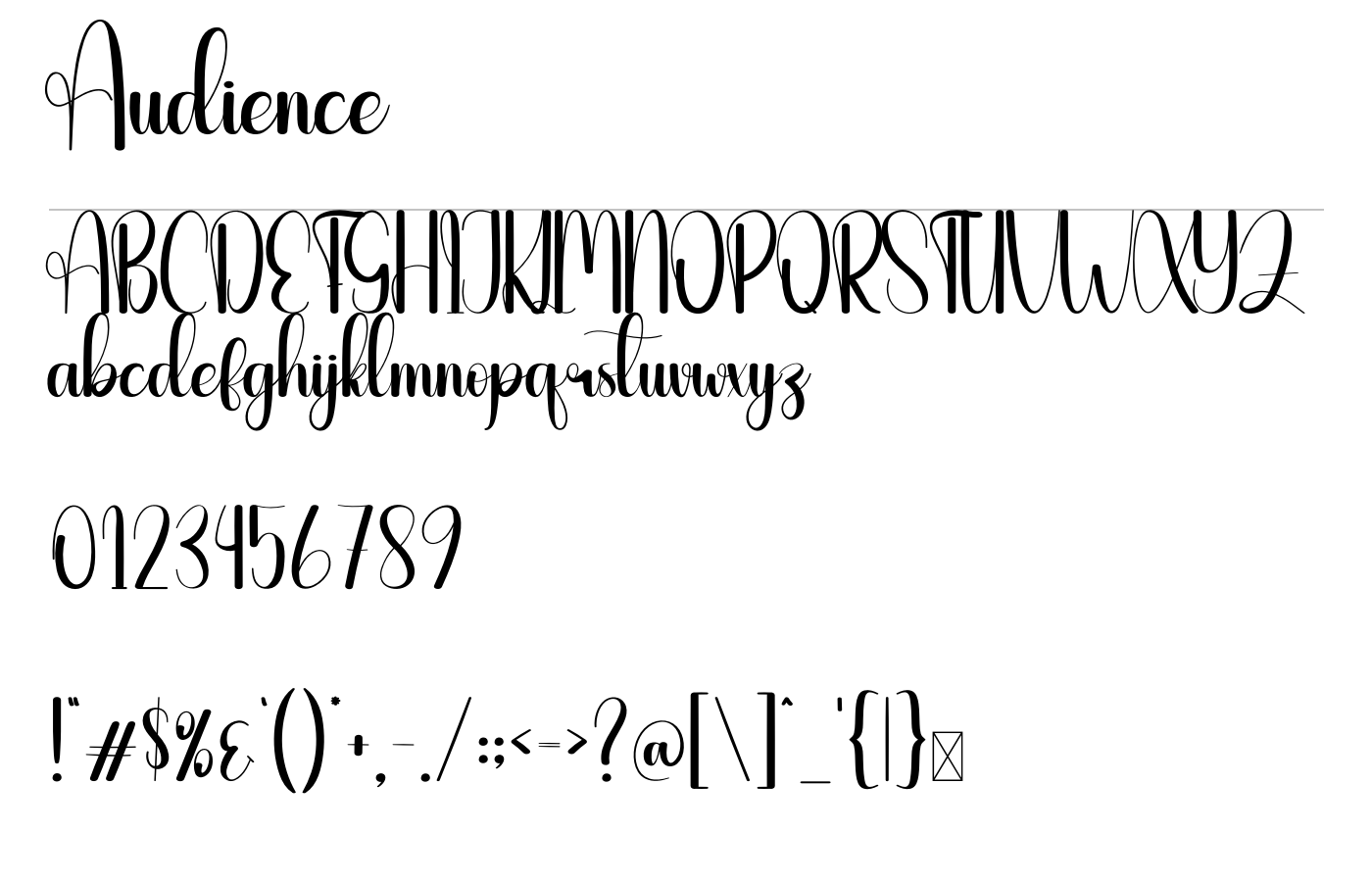
Audience Font is a stylish, handwritten script font that combines elegant tall letterforms with bold, rounded strokes. Its contrast between slender, delicate lines and thicker, solid shapes gives it a modern yet playful feel, making it ideal for fashion, branding, invitations, and creative projects that seek a chic and approachable personality. This font works wonderfully for headlines and logos where a distinctive, eye-catching style is needed.
Audience Font